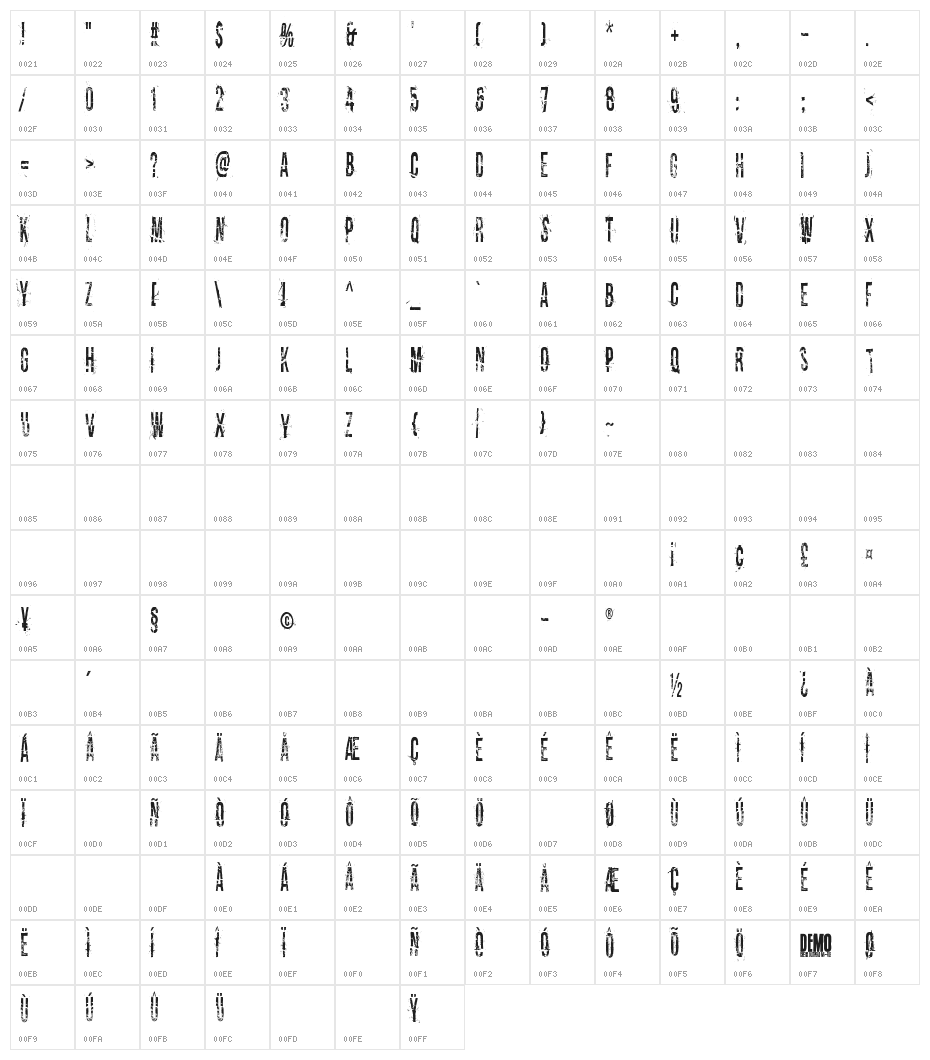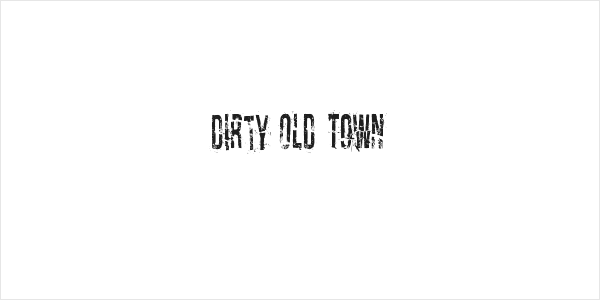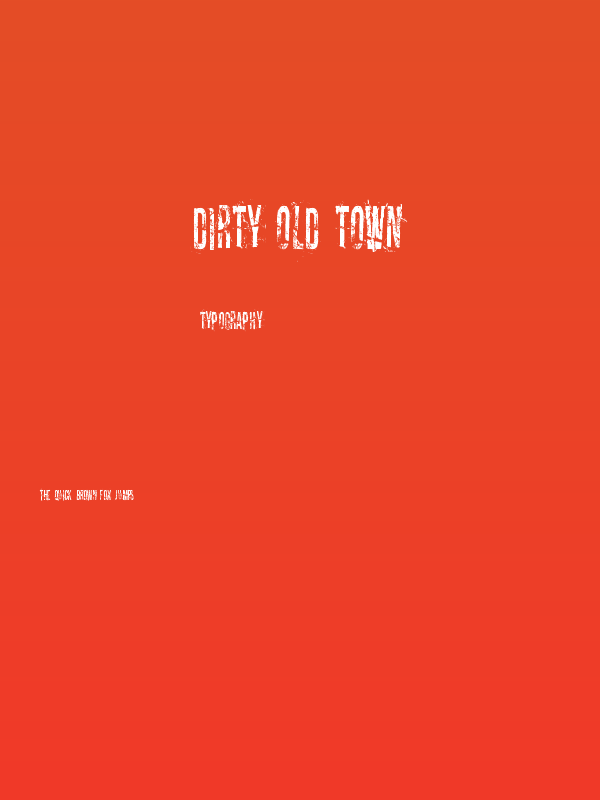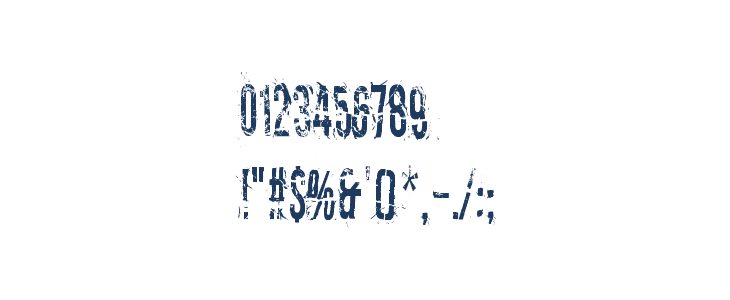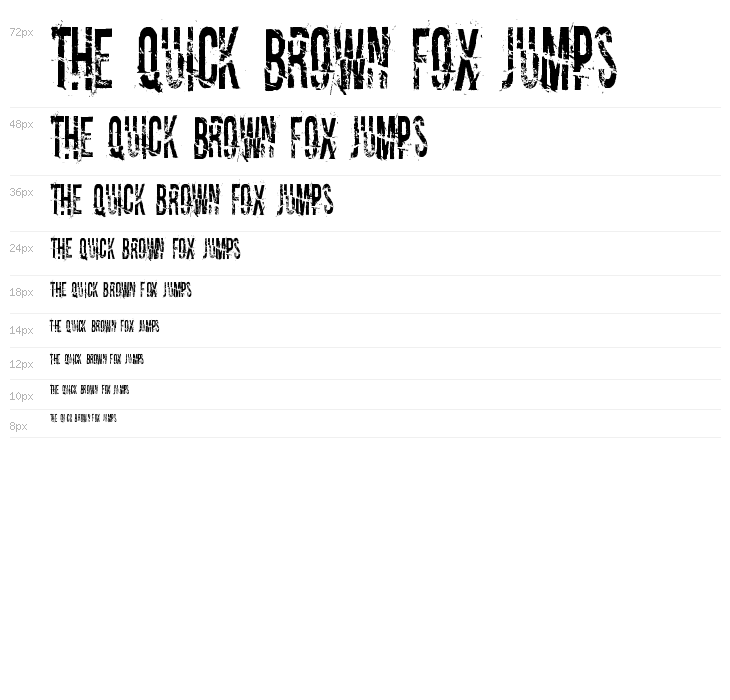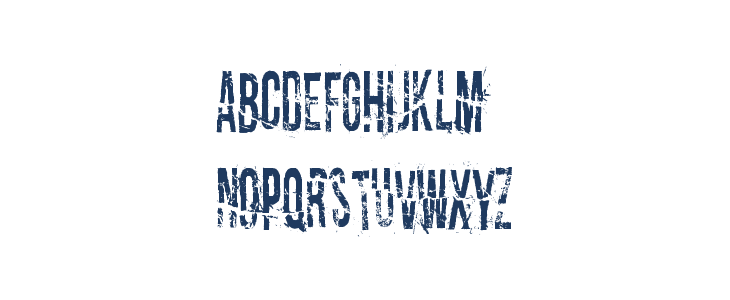
Dirty Old Town Font
Dirty Old Town Description
This font features a distressed, grunge style that gives it a worn and weathered appearance. The characters are bold and uppercase, with a rough texture that suggests a vintage, industrial aesthetic. The irregular edges and inconsistent fill create a dynamic and edgy look, making it ideal for projects that require a raw and gritty feel. The font maintains legibility despite its distressed design, with each letter clearly distinguishable. The numbers and special characters follow the same rugged style, ensuring a cohesive appearance across all text elements.
| Overall Style | Vintage, Grunge |
| Proposed Projects | Ideal for album covers, posters, urban-themed designs, and branding that requires a gritty, vintage look. |